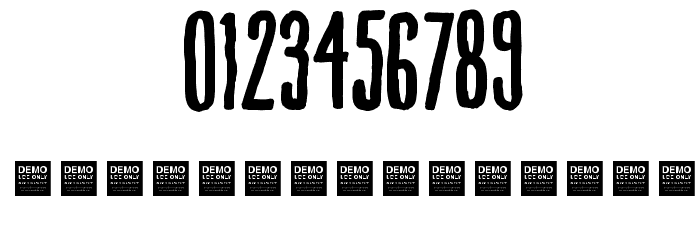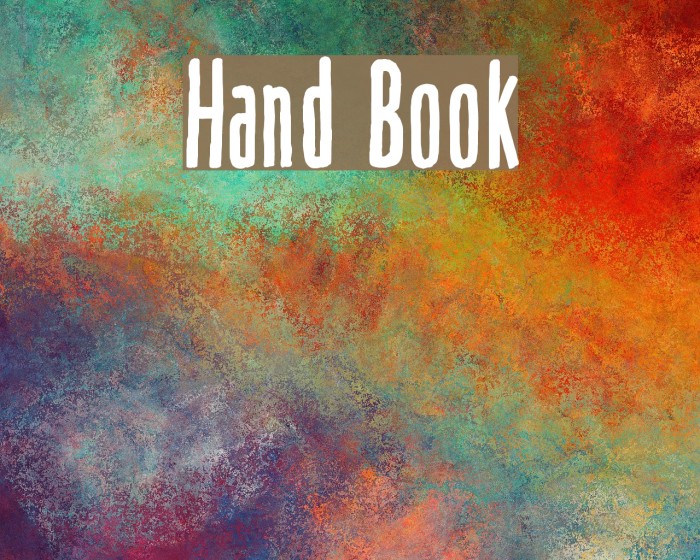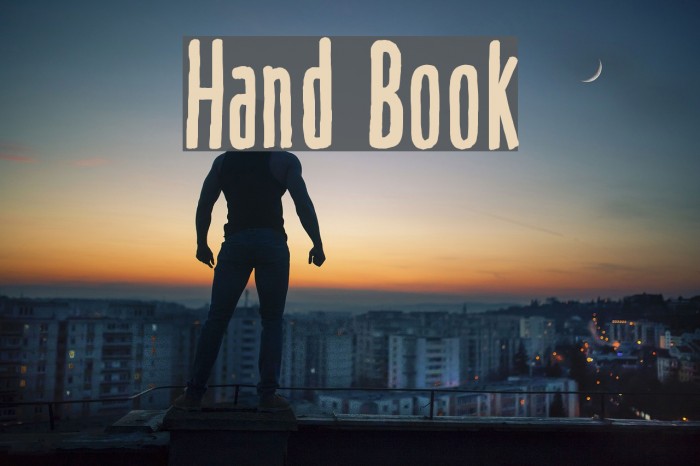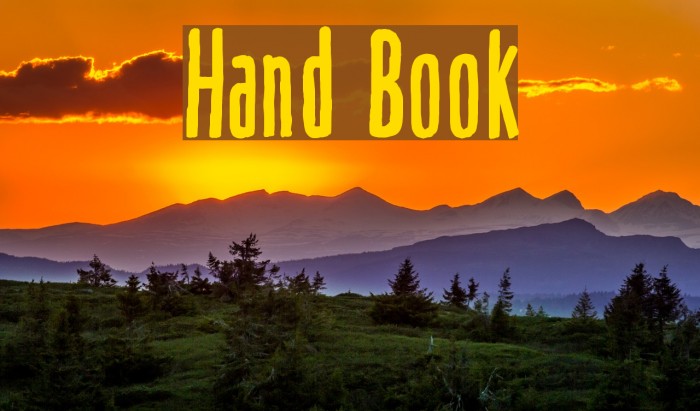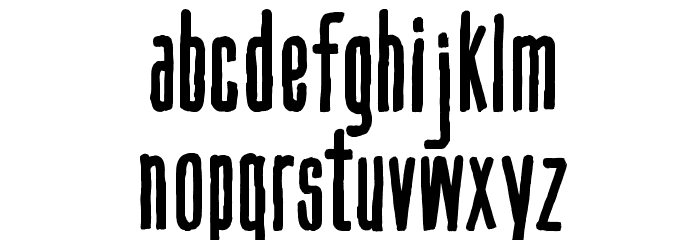
Hand Book Font
Hand Book Description
This font features a bold, hand-drawn style with a slightly irregular and playful appearance. The characters are tall and narrow, giving it a condensed look. The strokes are uneven, adding to its handcrafted feel, while maintaining legibility. The uppercase and lowercase letters are distinct, with a quirky charm that makes it stand out. The numbers and special characters follow the same style, ensuring consistency across all glyphs. This font is ideal for projects that require a personal touch or a vintage aesthetic.
| Proposed Projects | Great for posters, logos, packaging, and any design needing a handcrafted or vintage feel. |